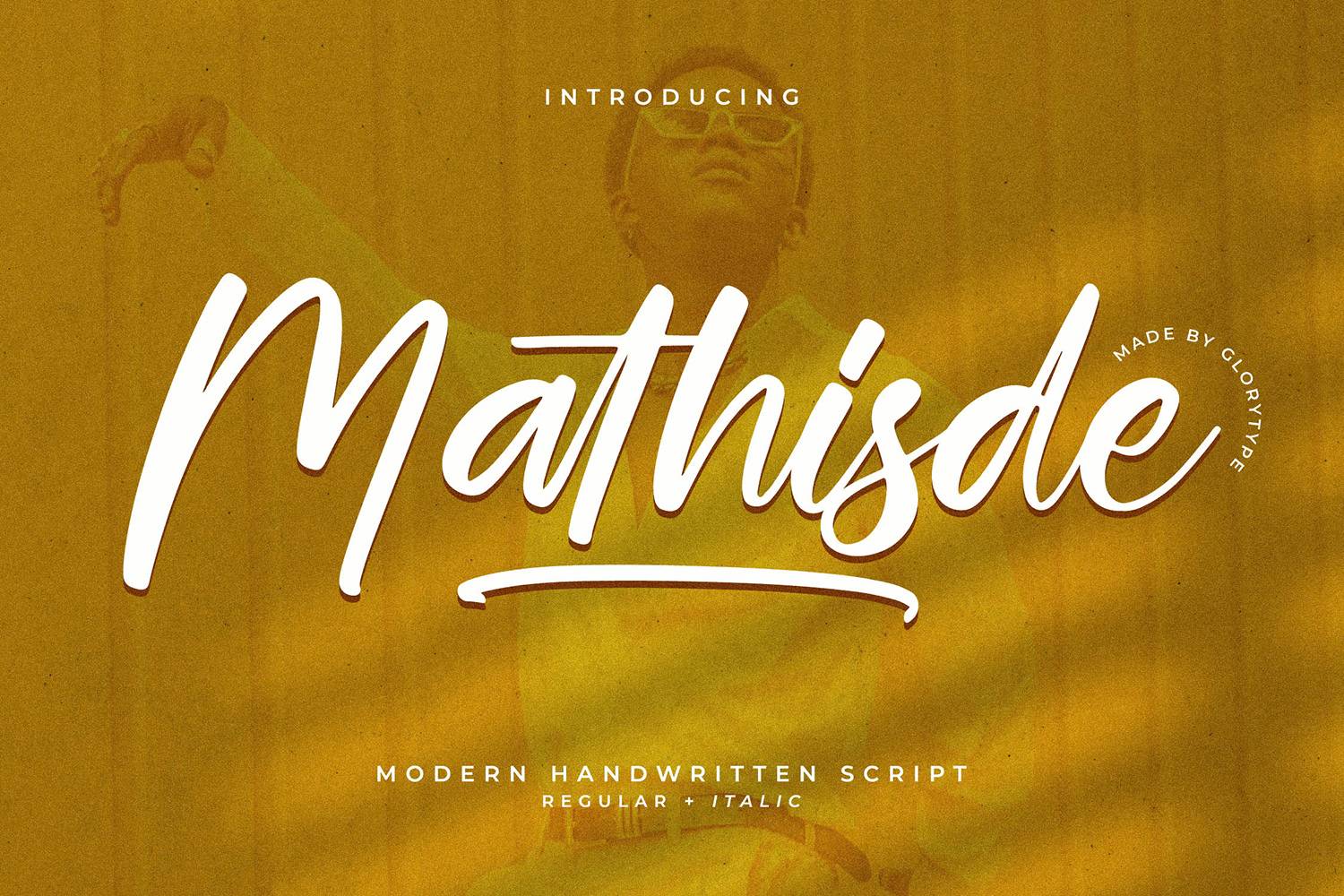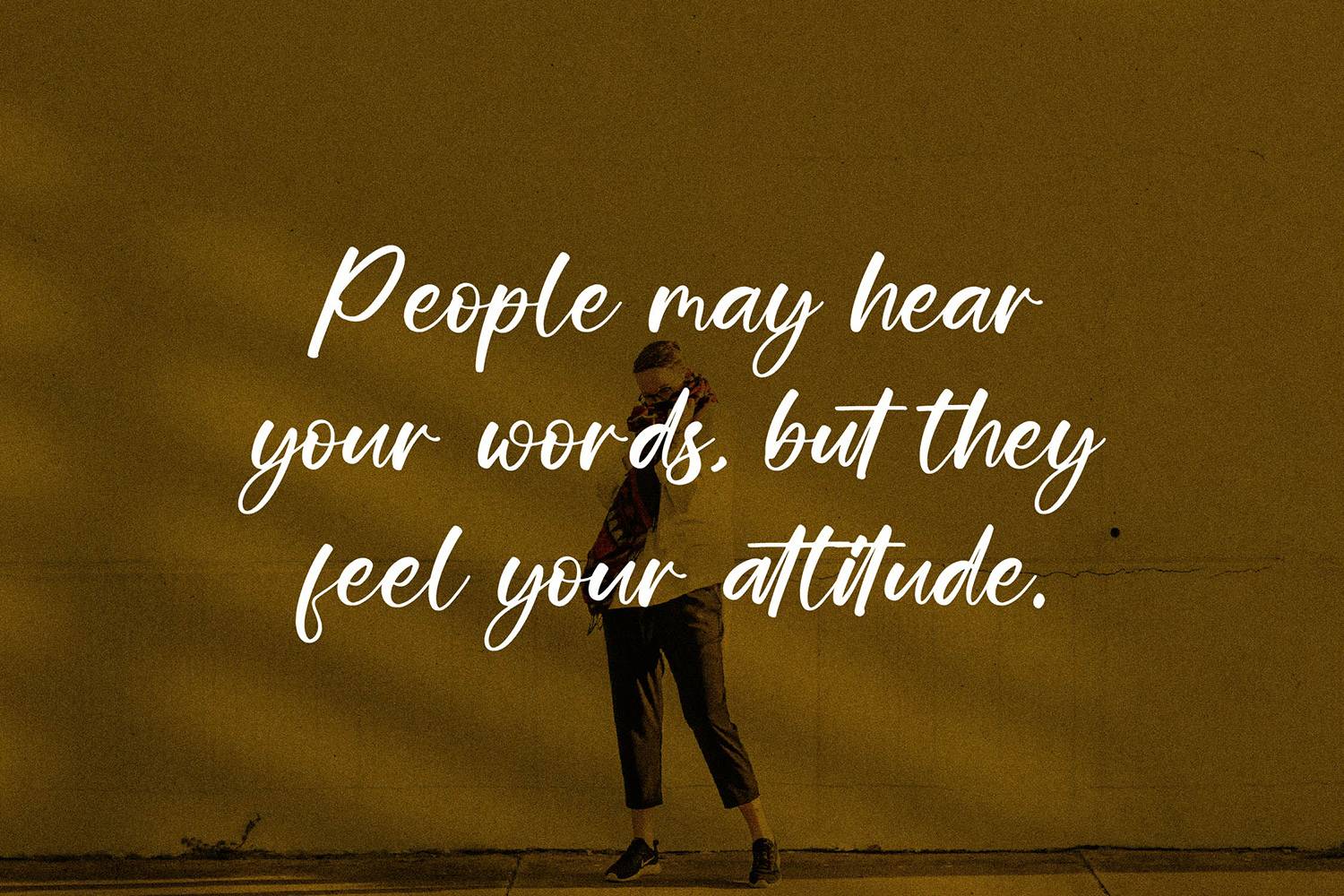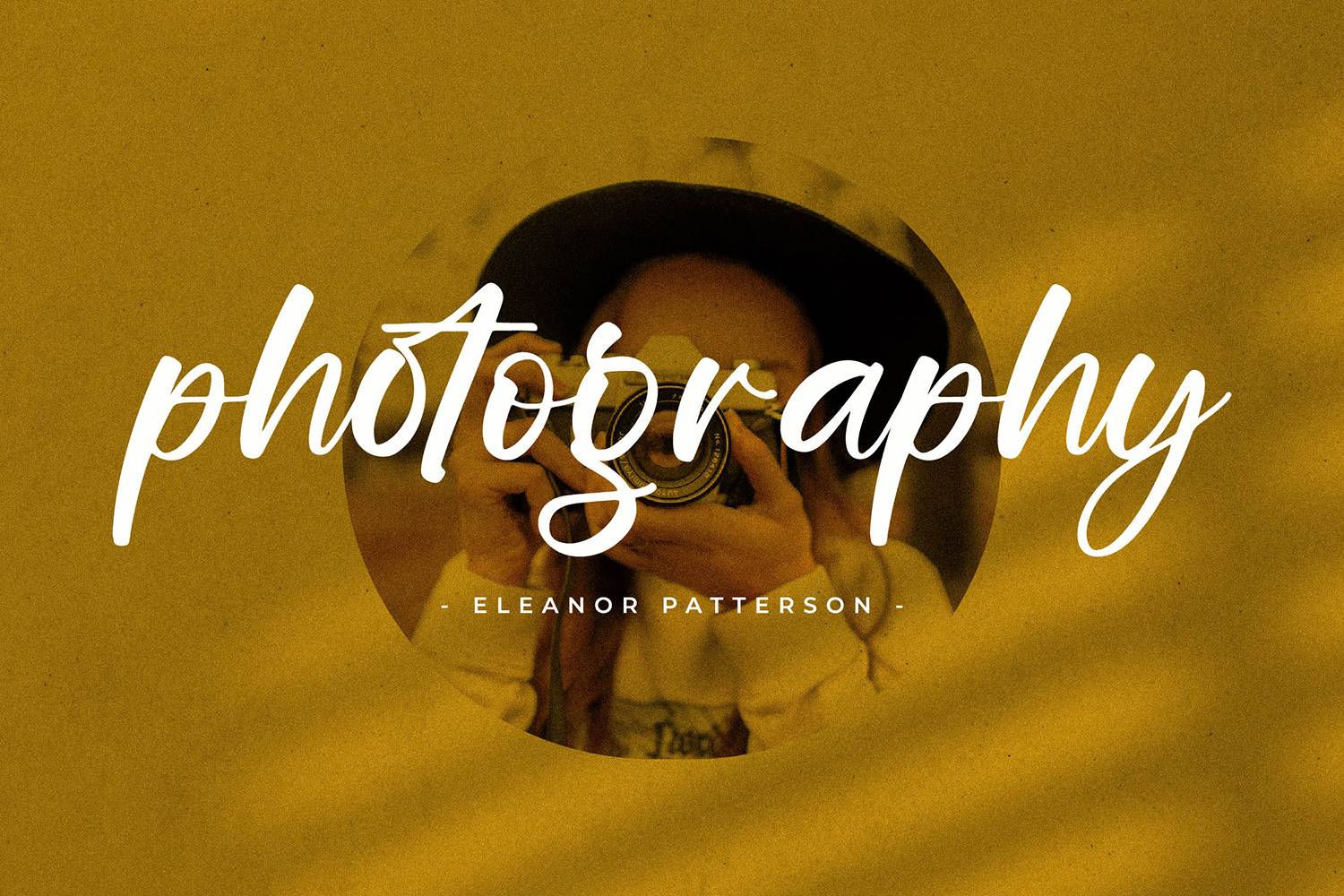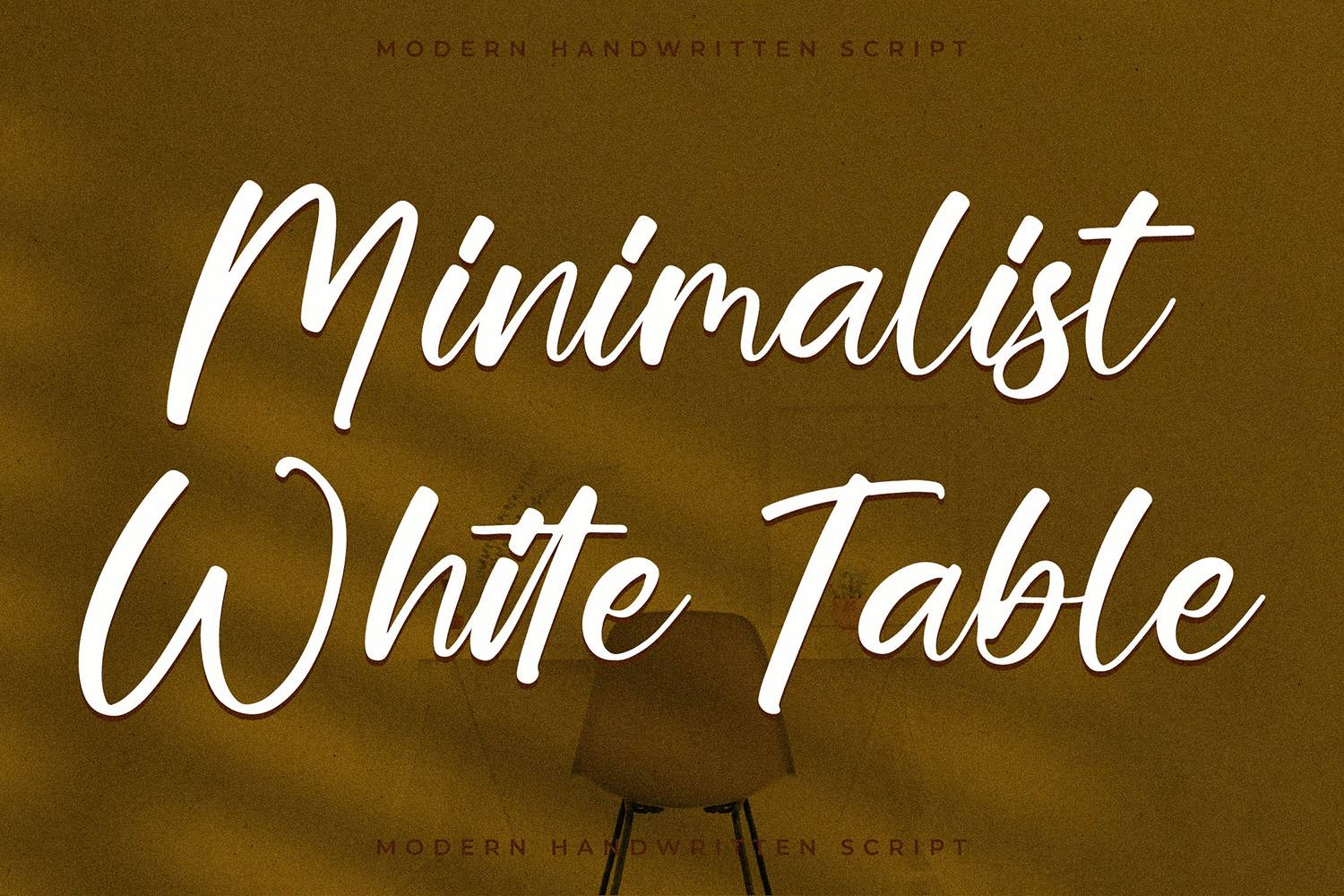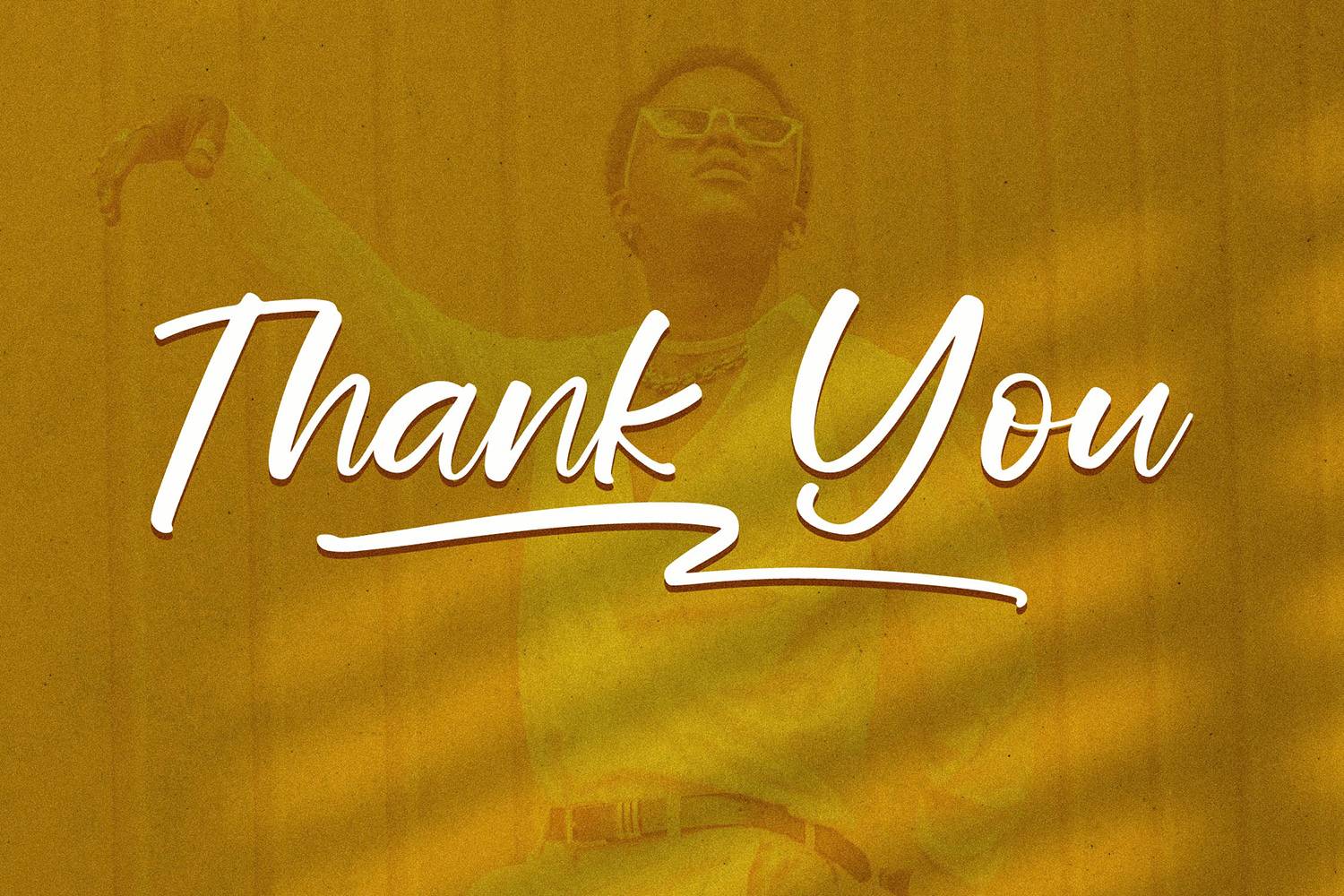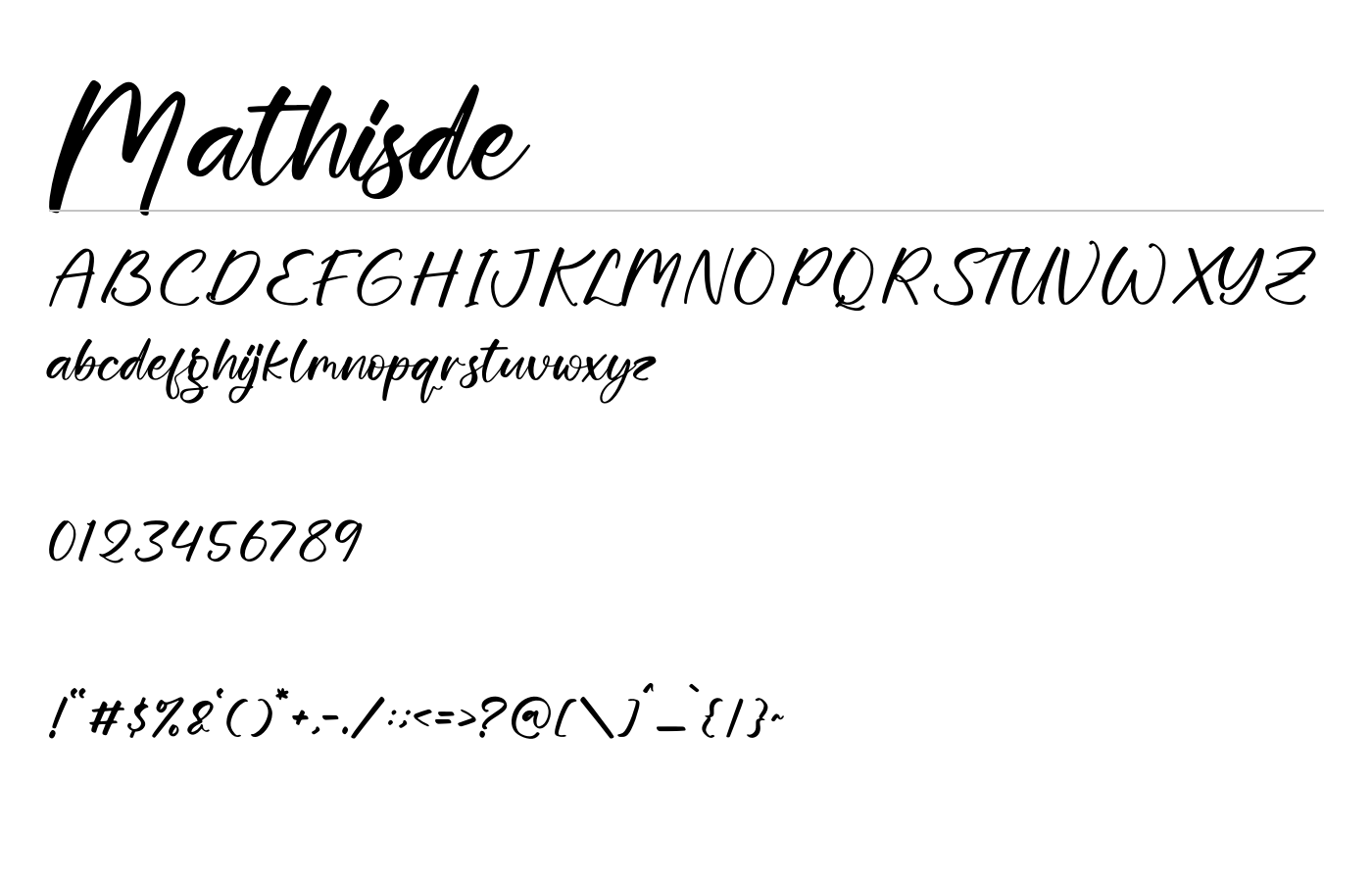
Mathisde is a lively, handwritten script font with a natural, brush-like flow and a medium weight that feels both personal and elegant. Its smooth, slightly slanted letterforms and varied stroke widths create a dynamic yet approachable style, ideal for branding, invitations, and creative projects that seek a friendly yet refined touch. This font works well in contexts where a hand-crafted, expressive look is desired without sacrificing readability.
Mathisde Font
About Mathisde Font